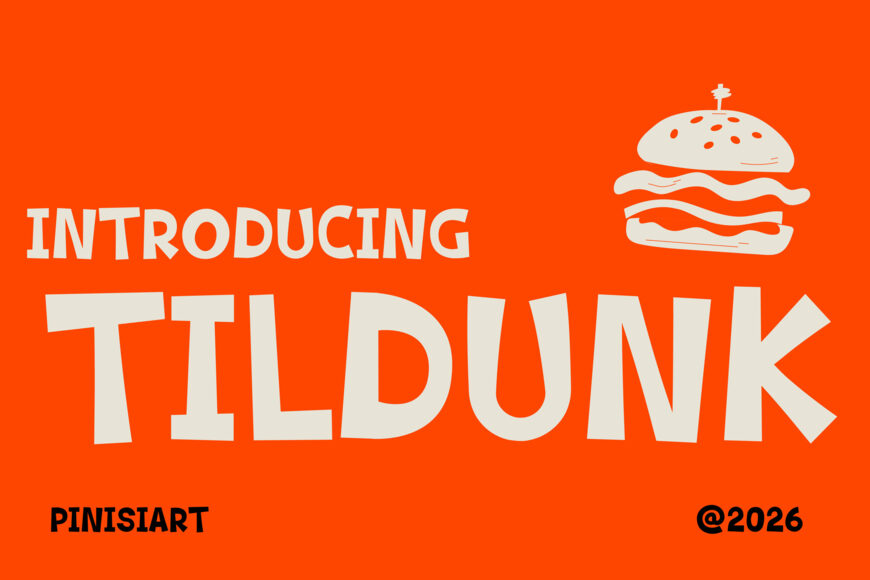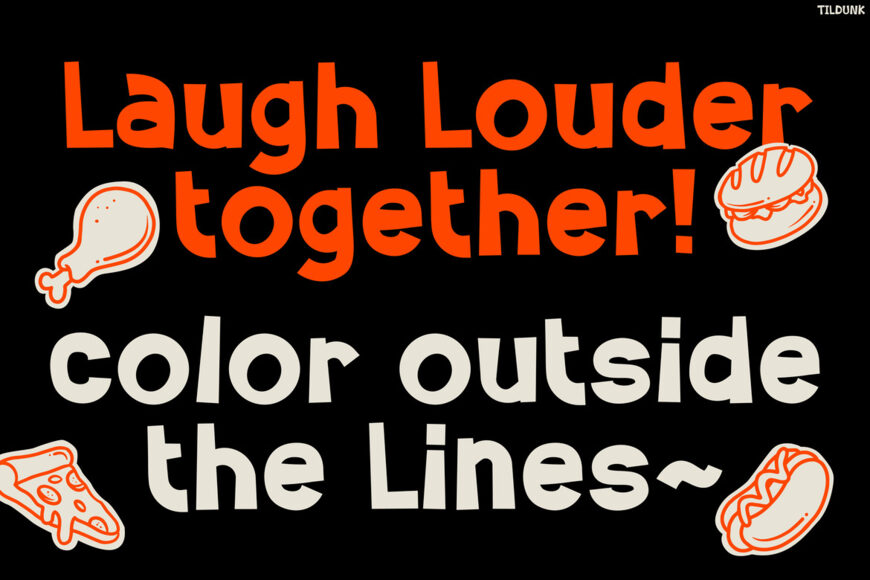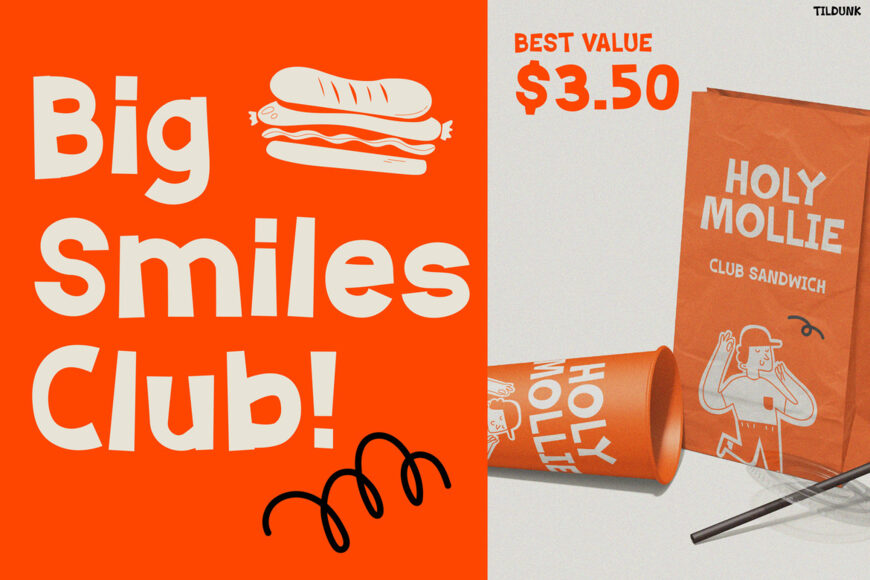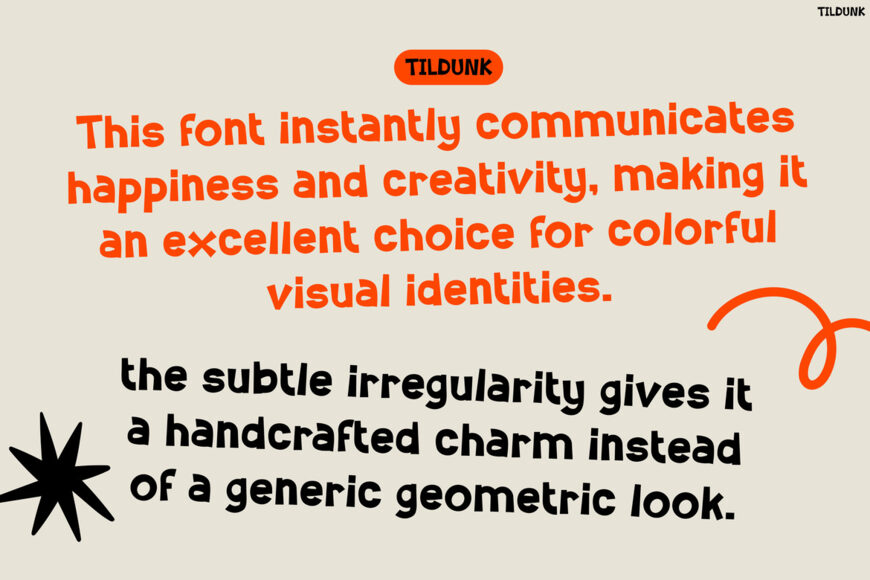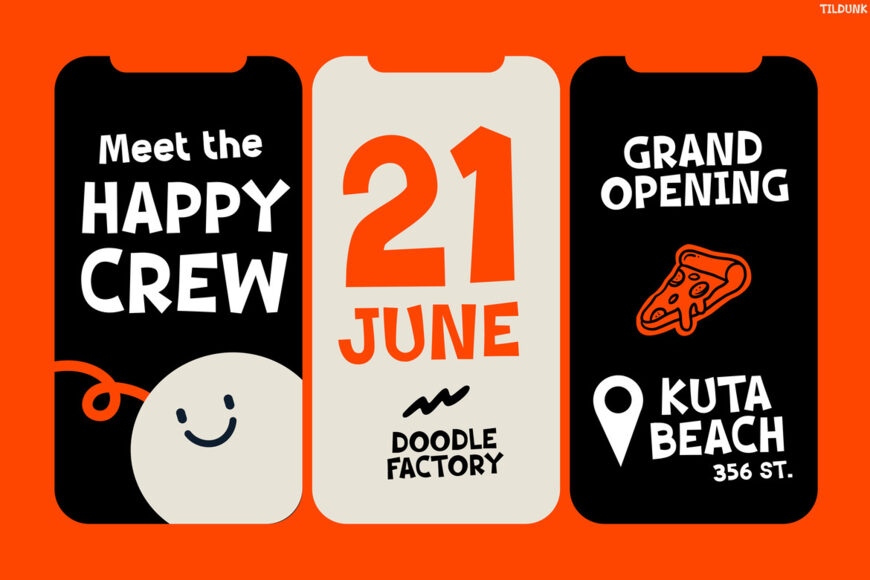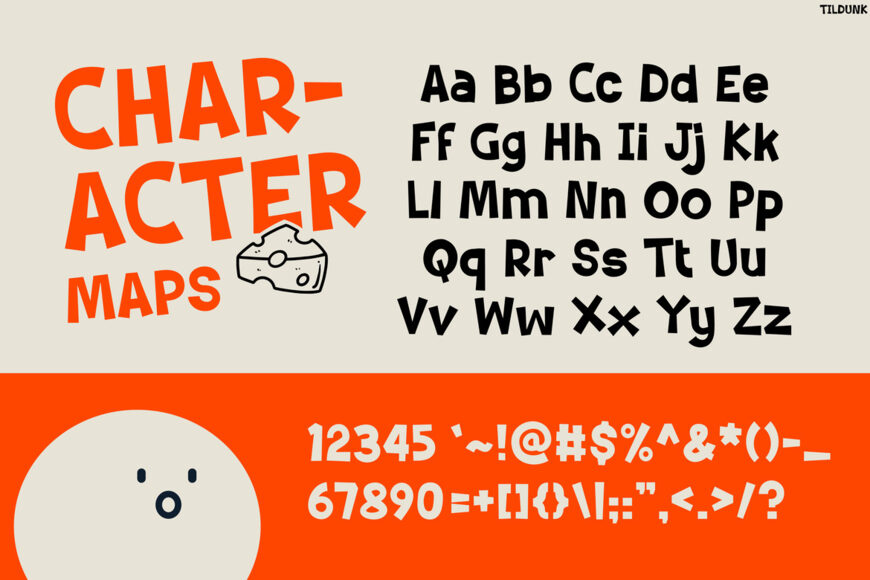
Tildunk is a joyful display font designed to fill every project with smiles, positive energy, and playful personality. Not only does it feature chunky handwritten letterforms, but it also blends rounded shapes with quirky imperfections that create a warm and approachable look. Its bold style instantly grabs attention without sacrificing readability. In addition, every character feels lively and expressive, making headlines look cheerful and memorable.